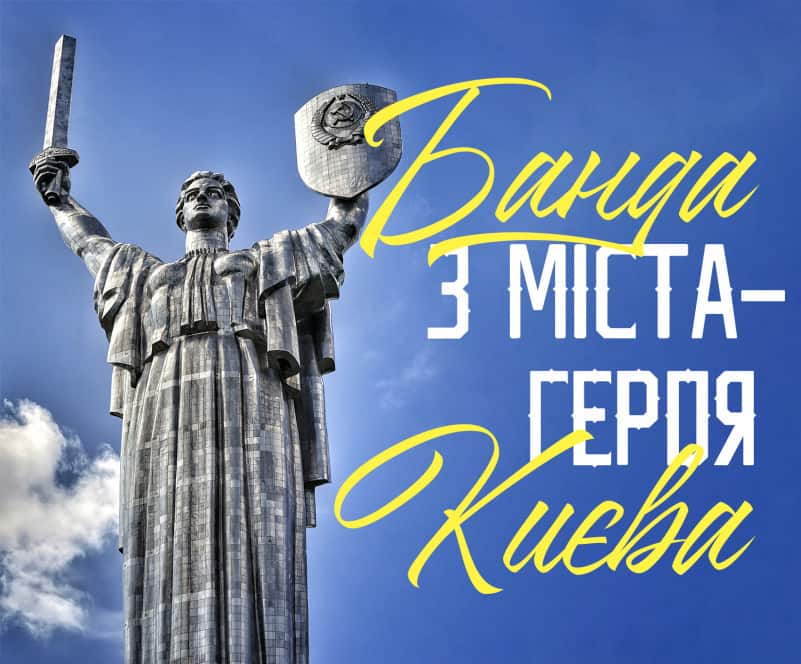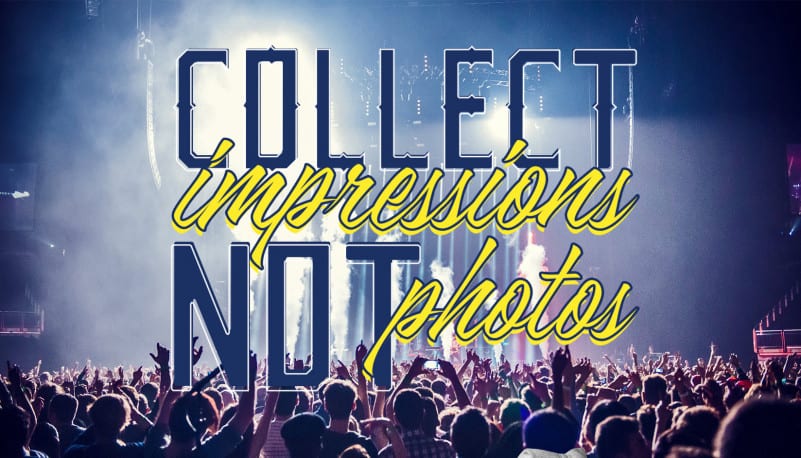
Boombox Family Font
Boombox Family Font – Latin and Cyrillic is a long clean font with Latin and Cyrillic support. This is a very versatile font that works great in both large and small sizes.
The Boombox font family is perfect for branding projects, homeware designs, product packaging, magazine headlines or simply as a stylish text overlay on any background image.